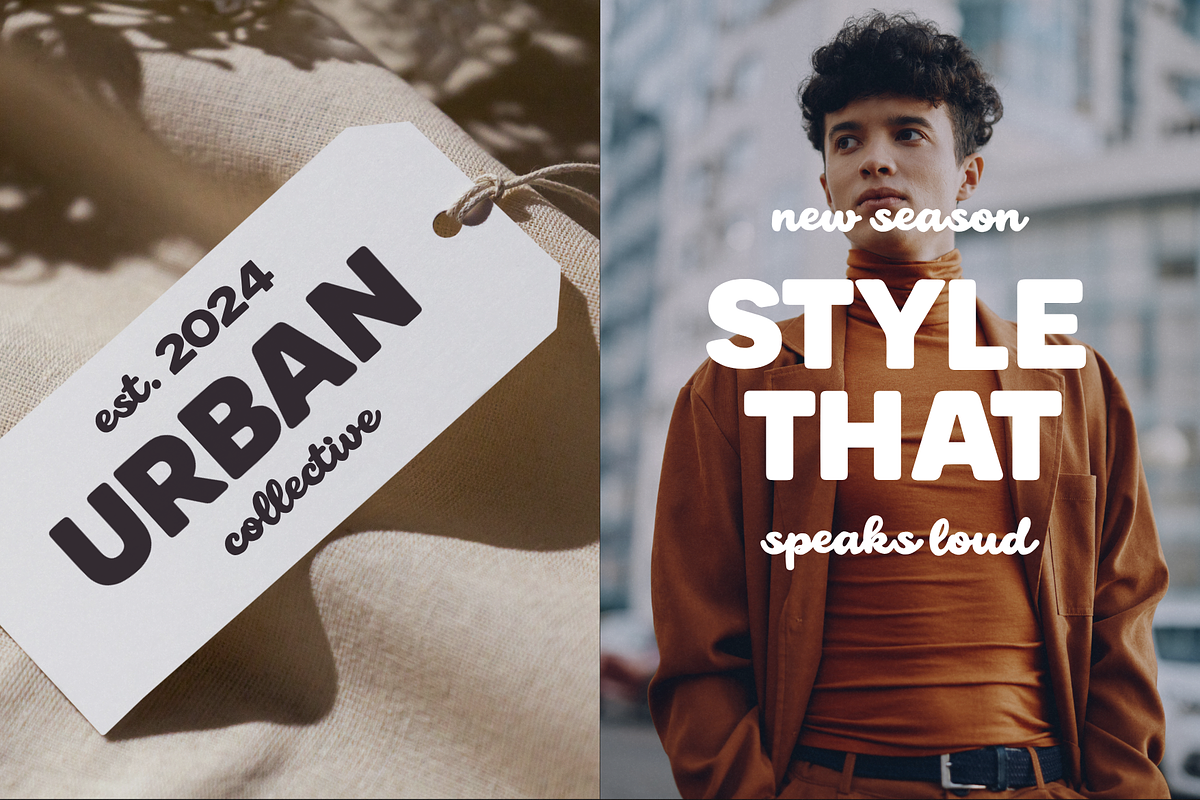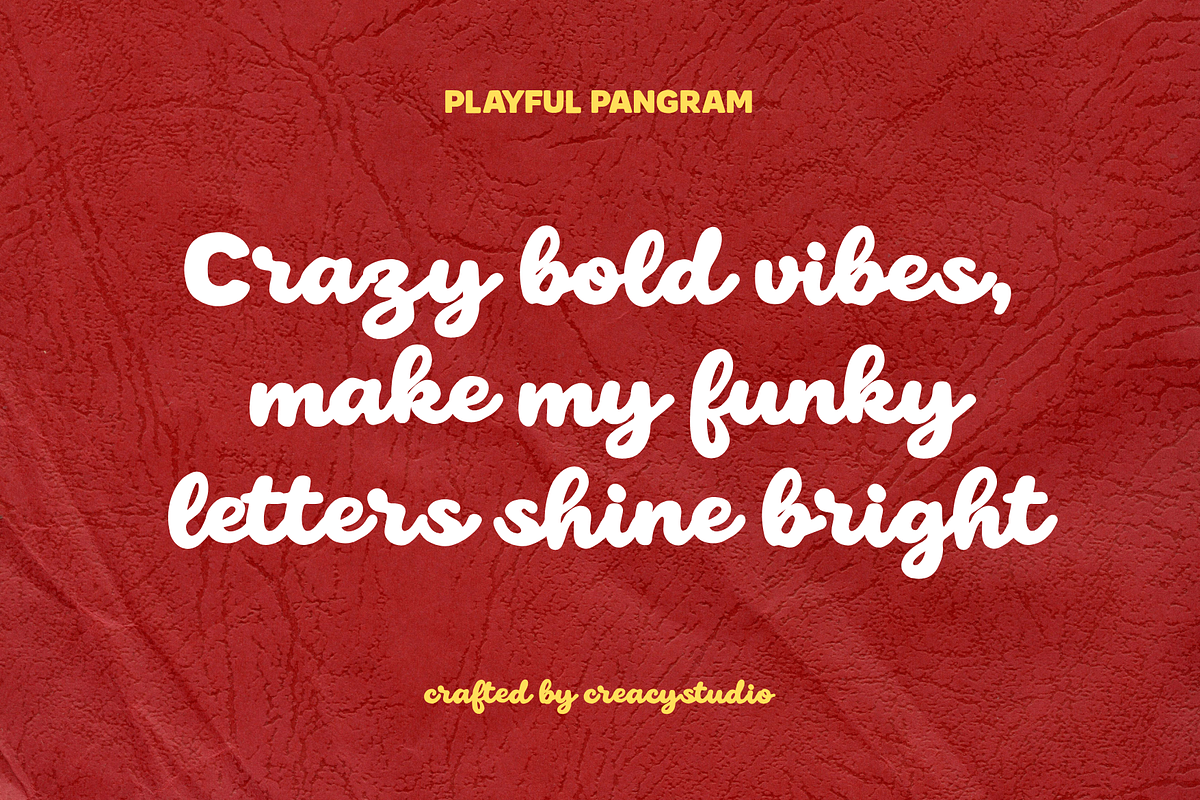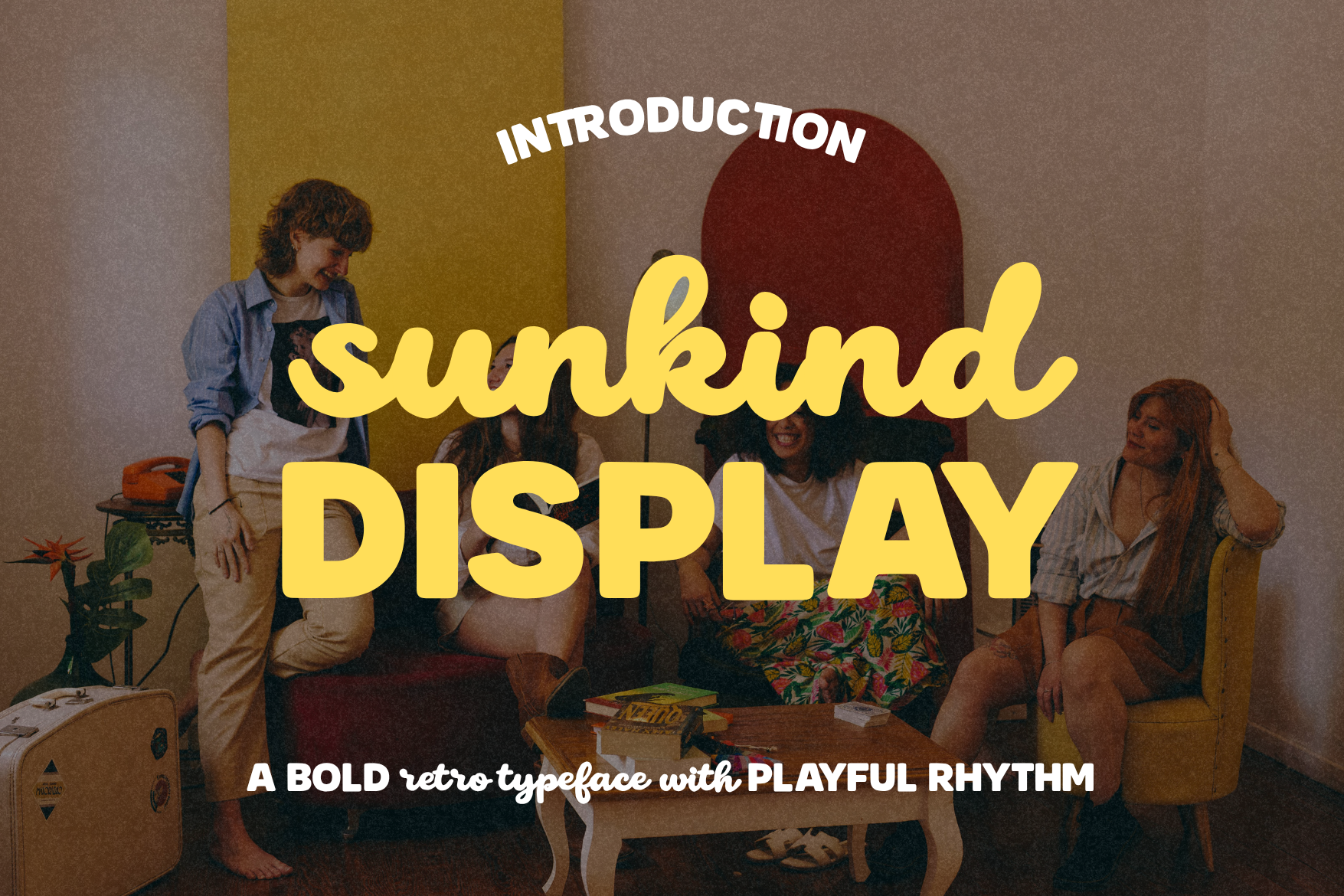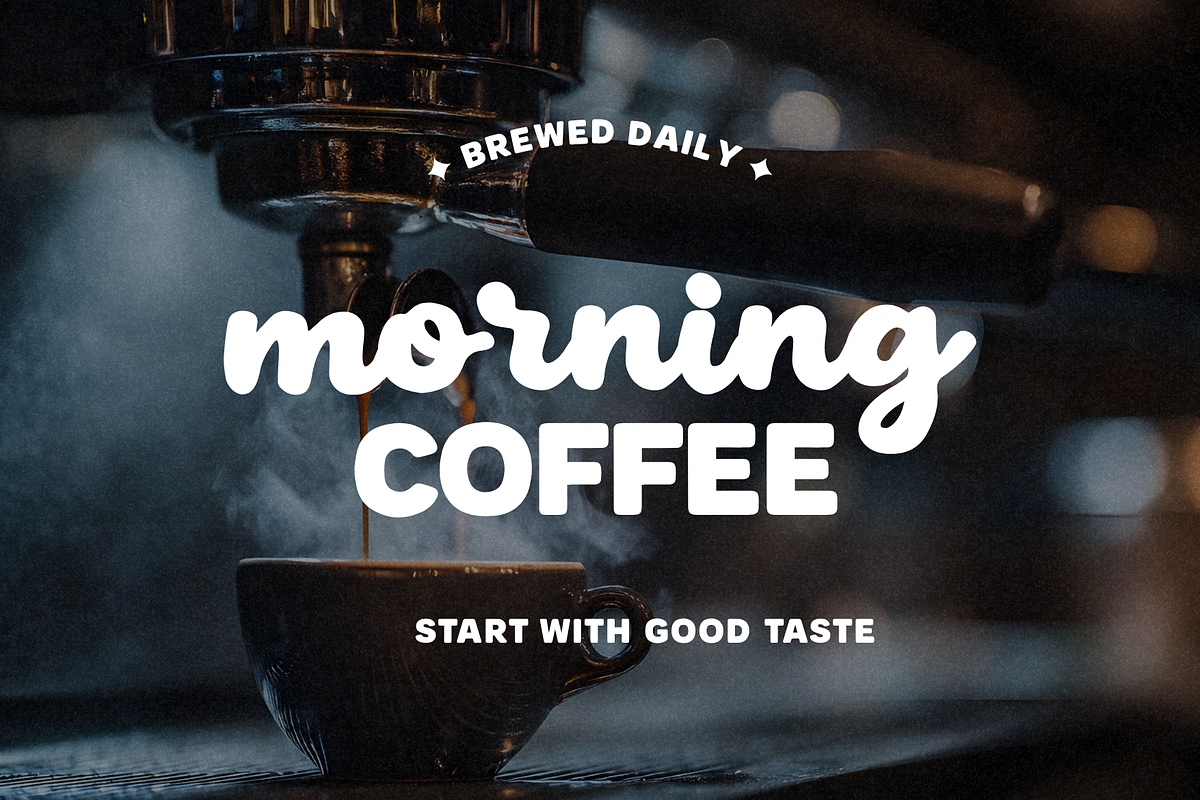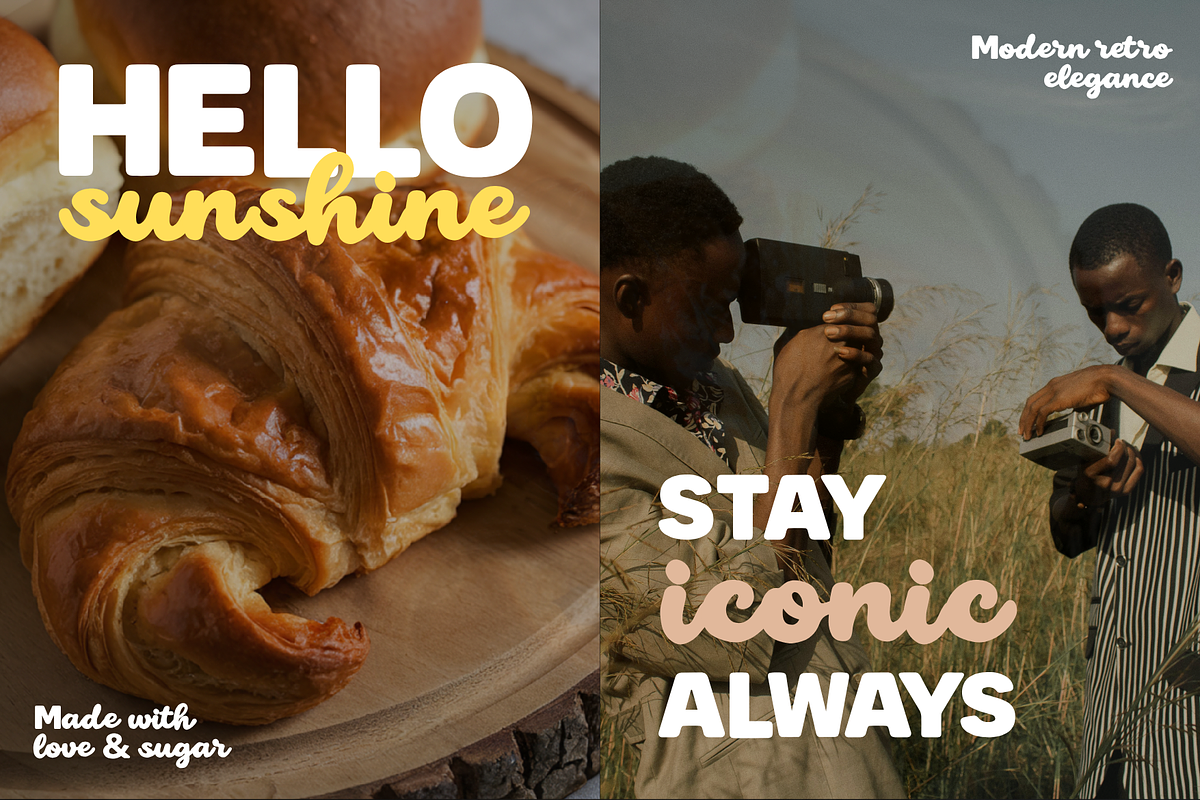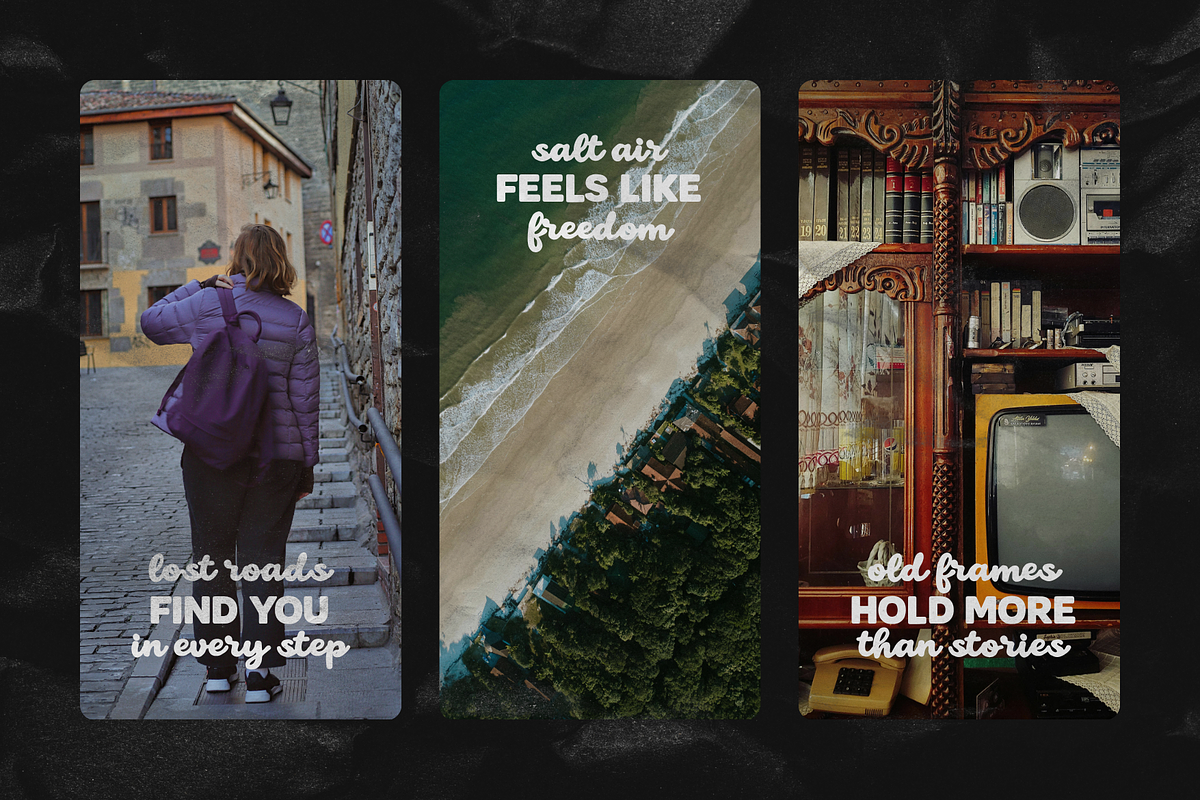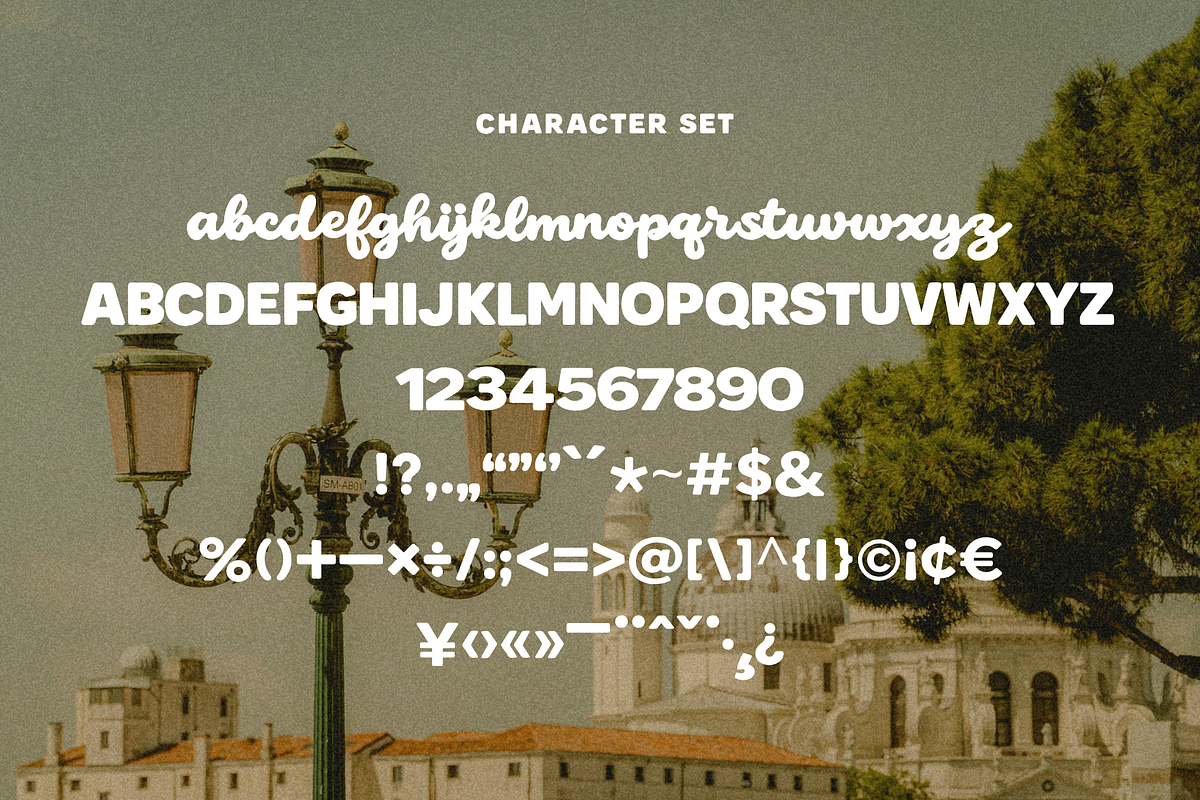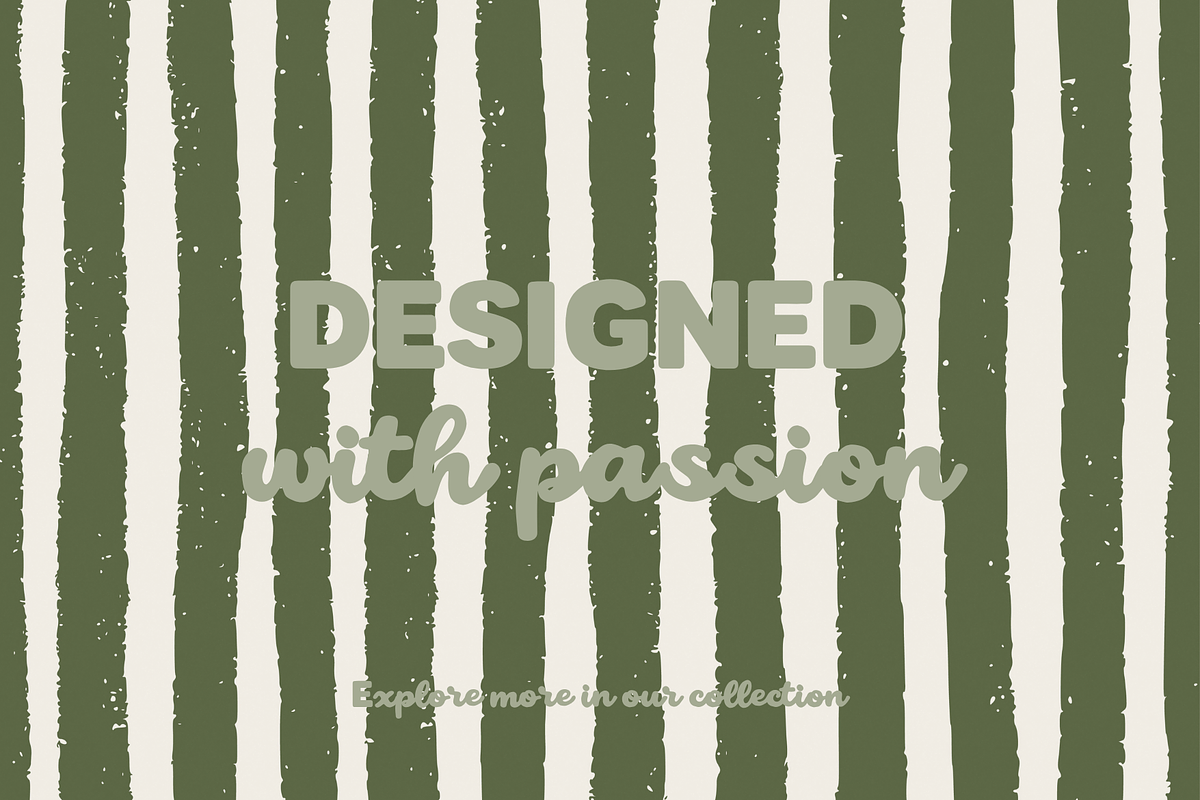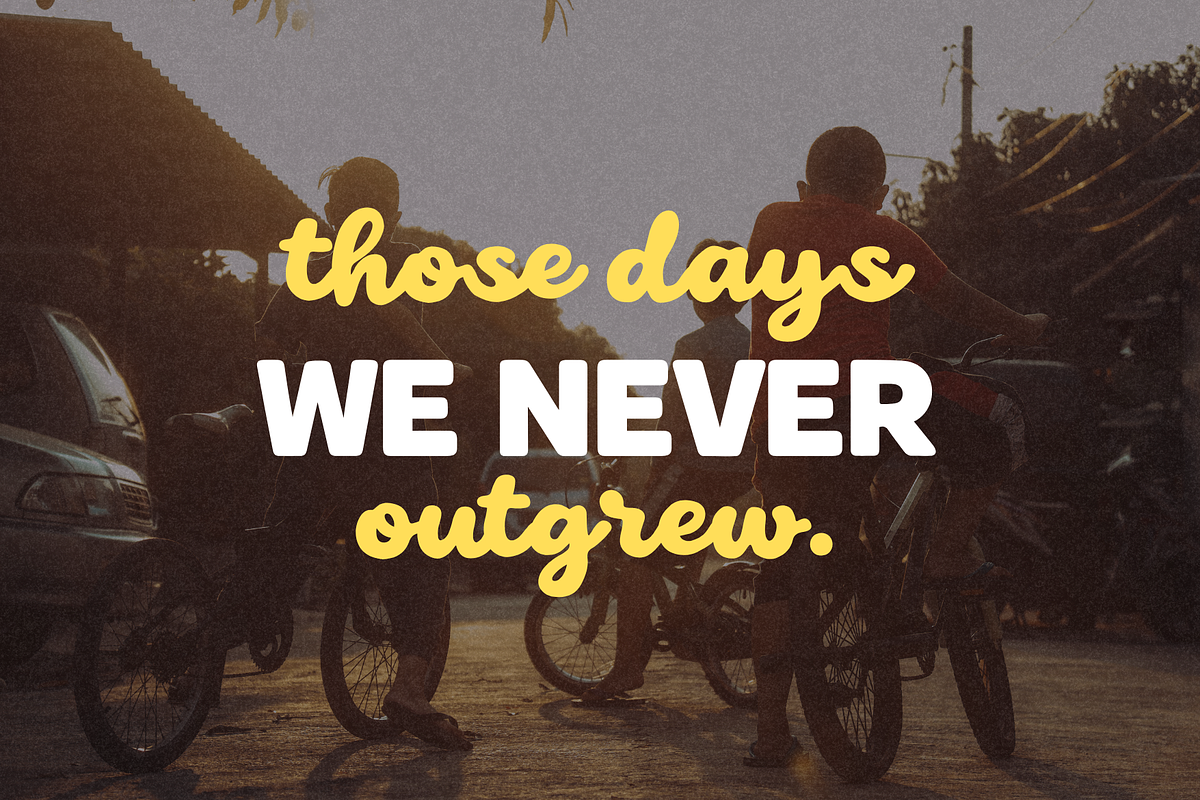
Sunkind Display – Playful Retro Font
Sunkind Display – Playful Retro Mixed Typeface
Sunkind Display is a bold and expressive mixed typeface that blends a chunky retro sans with a smooth handwritten script. Designed to create contrast and rhythm, this font brings a nostalgic yet modern personality into your designs.
With its playful curves, soft edges, and confident weight, Sunkind is perfect for projects that want to feel warm, friendly, and full of character.
✦ What Makes It Special
- Mixed Typeface System → Combination of bold sans + handwritten script
- Playful Retro Aesthetic → Inspired by 70s–90s nostalgic visuals
- Strong Visual Hierarchy → Perfect for headline + accent pairing
- Warm & Friendly Tone → Ideal for lifestyle and emotional branding
✦ Font Styles Included
- Bold Display Sans (Uppercase & Lowercase)
- Handwritten Script Style
✦ Perfect For
- Branding & Logo Design
- Social Media Content (Instagram, Pinterest)
- Packaging Design (food, coffee, lifestyle)
- Posters & Editorial Layout
- Fashion & Lookbook Design
- Quotes & Inspirational Content
✦ Design Character
Sunkind is built around contrast and rhythm:
- The bold sans gives structure and readability
- The script style adds personality and flow
- Together, they create a dynamic composition that feels alive and engaging
This makes it extremely effective for Canva templates, marketing visuals, and modern retro branding.
Bring back the warmth of the past with a modern twist. Sunkind Display isn’t just a font—it’s a feeling.